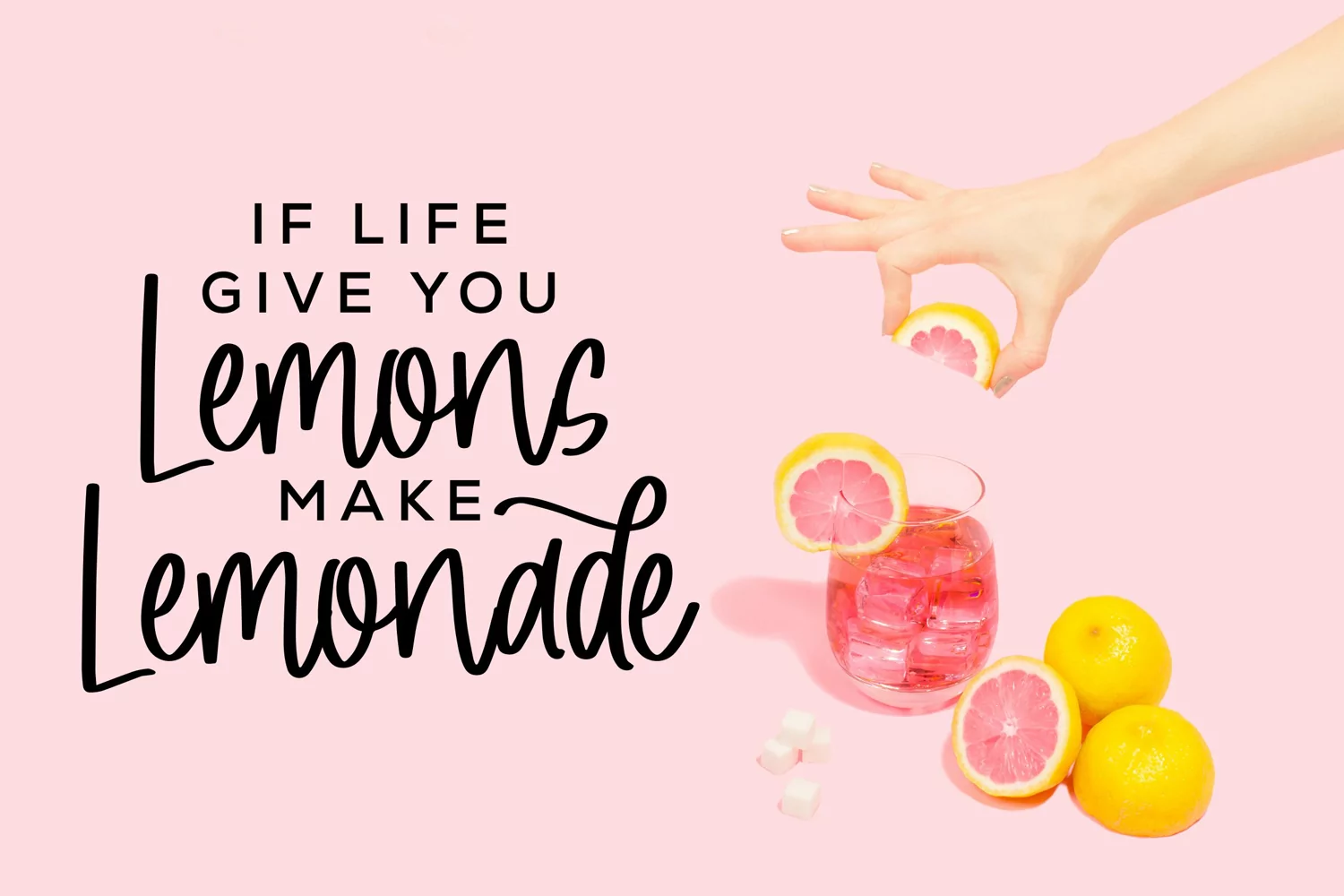
Sugar Daddy - Lovely Handlettering Font that contain lowercase, uppercase, symbol, and also support multi language. There’s a lot ligatures in this font. This Font also comes with ligatures, alternates and many more. this font suitable for fashion, branding, catalog and other design what you want.
Sugar Daddy